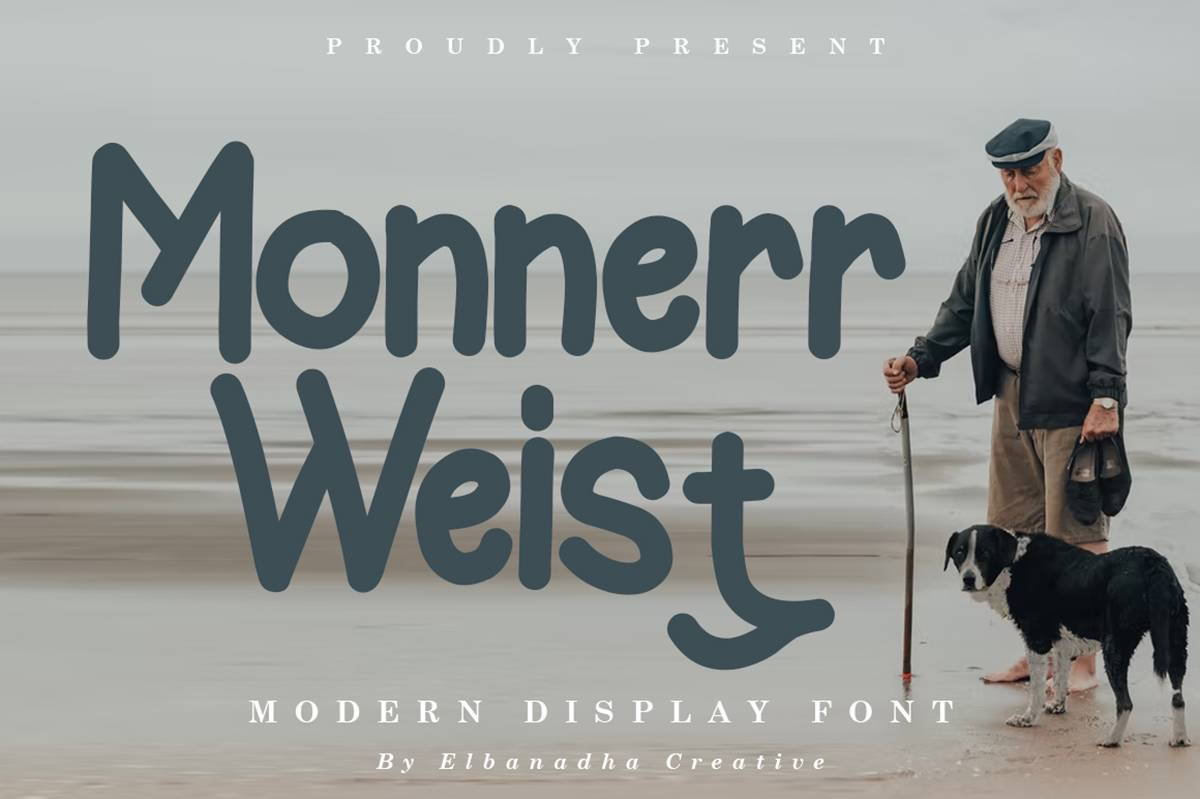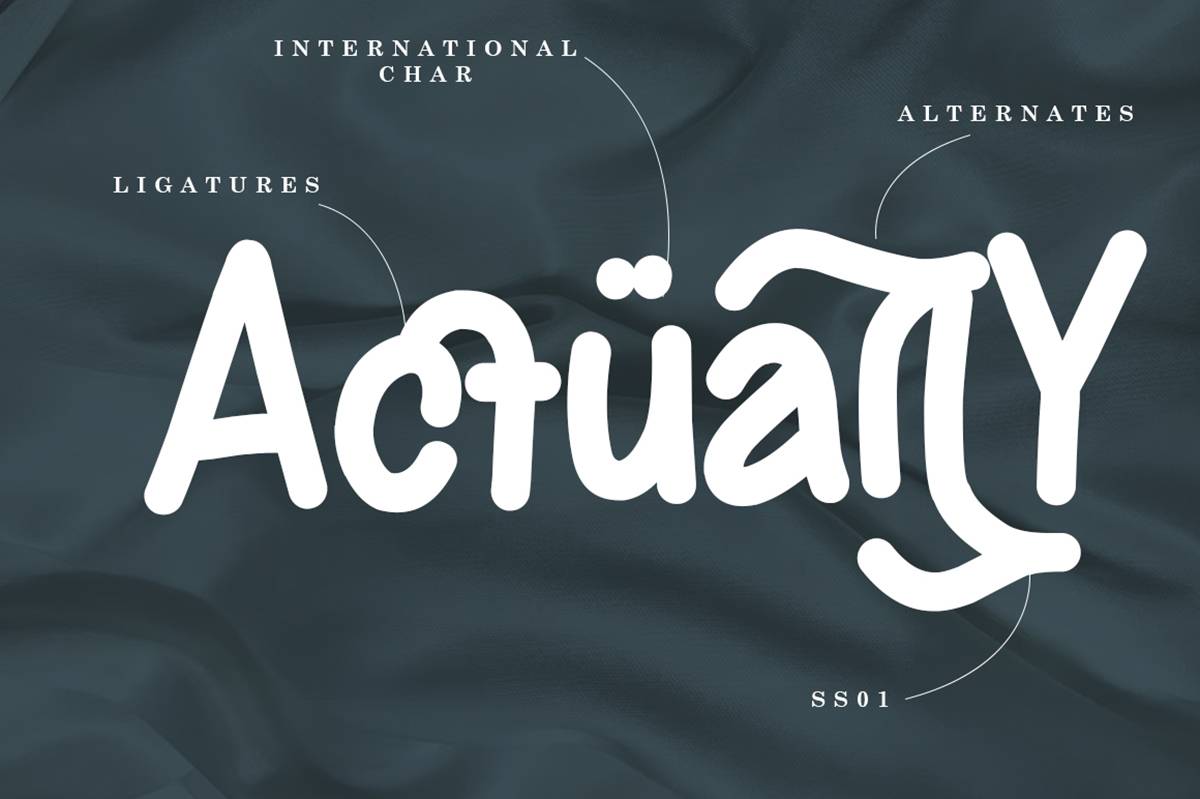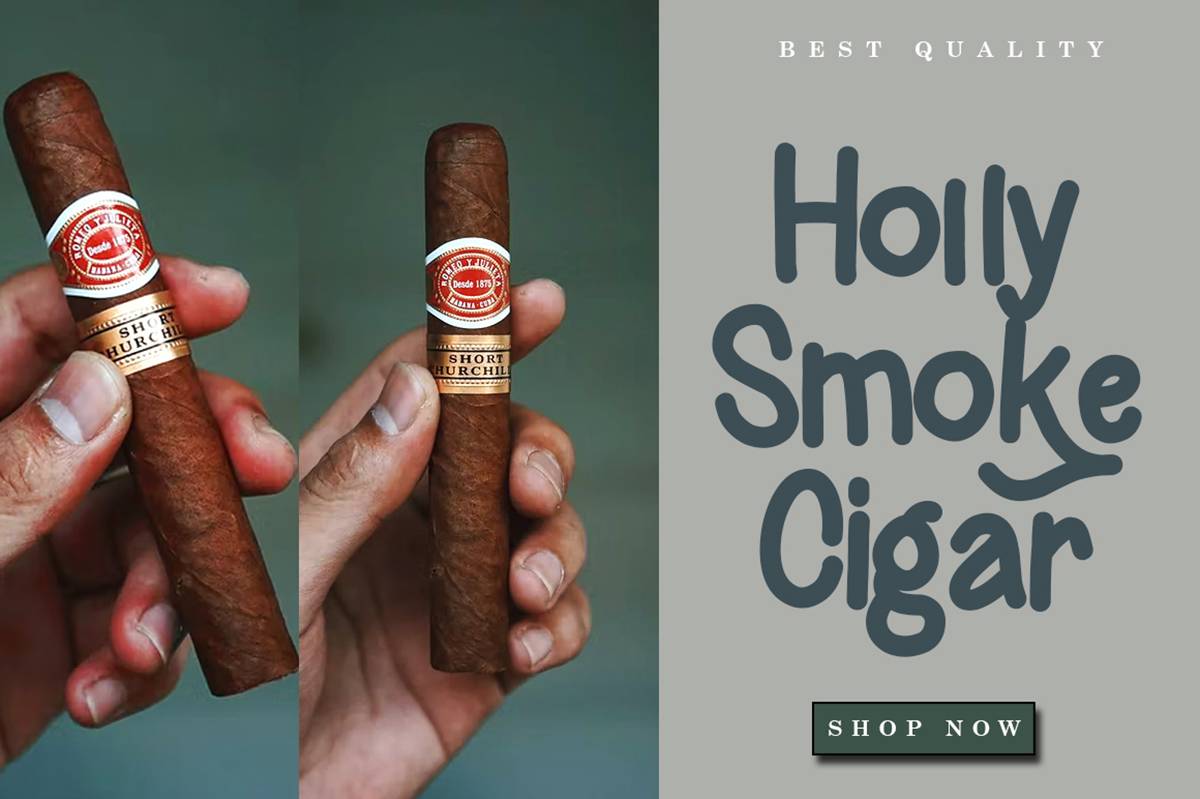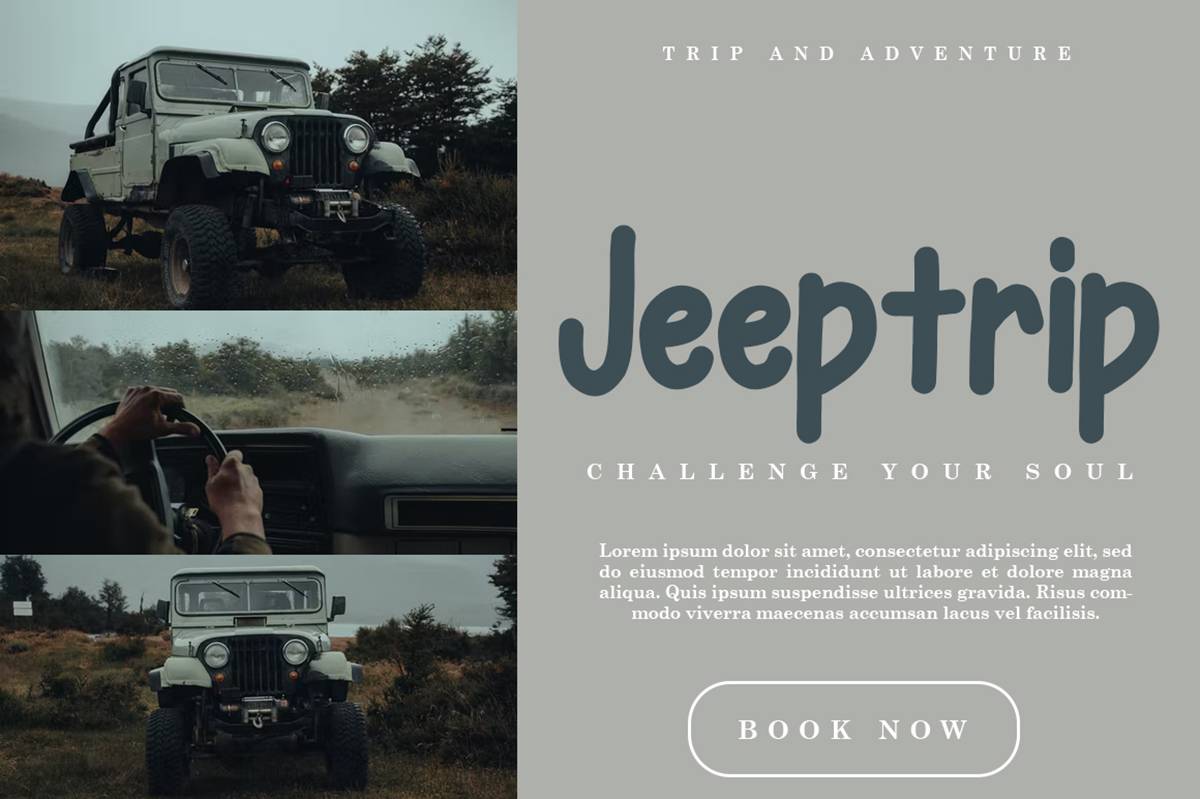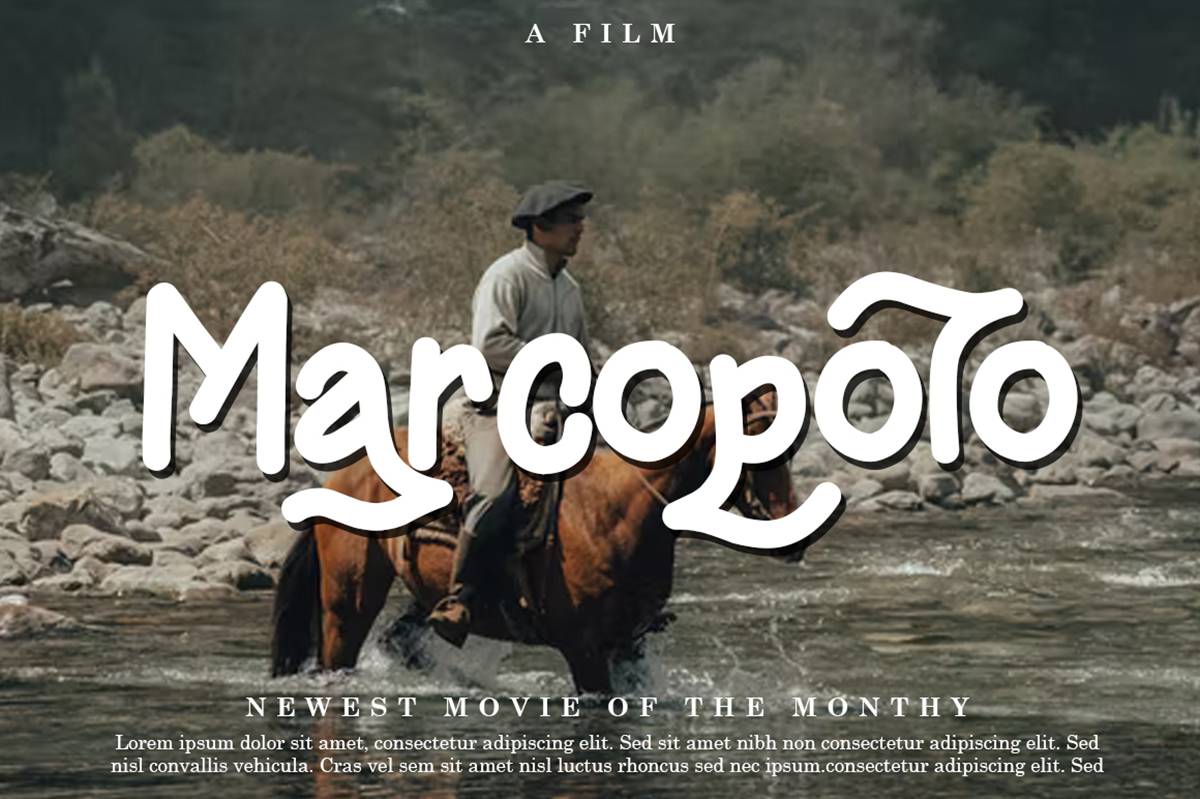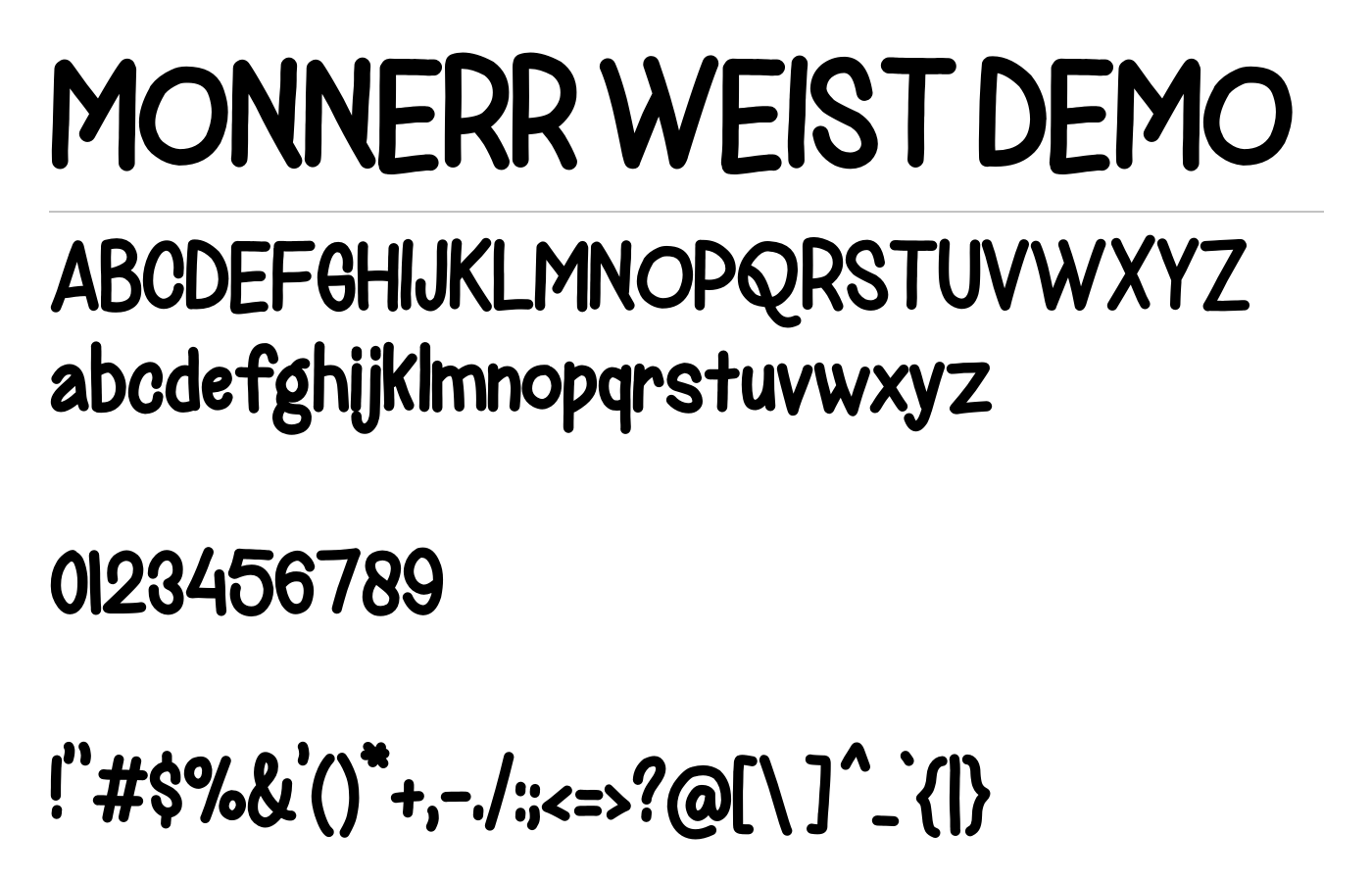
Monnerr Weist is a playful, casual sans serif font with a hand-drawn feel, characterized by slightly uneven strokes and rounded edges that bring warmth and friendliness to the text. Its tall x-height and moderately wide letterforms enhance readability, making it ideal for informal designs such as children's books, creative branding, or fun headlines. This font works well wherever a relaxed, approachable, and youthful vibe is needed to connect with audiences.
Monnerr Weist Font
About Monnerr Weist Font
| Font family | Monnerr Weist Font |
| Designer | Elbanadha Creative |